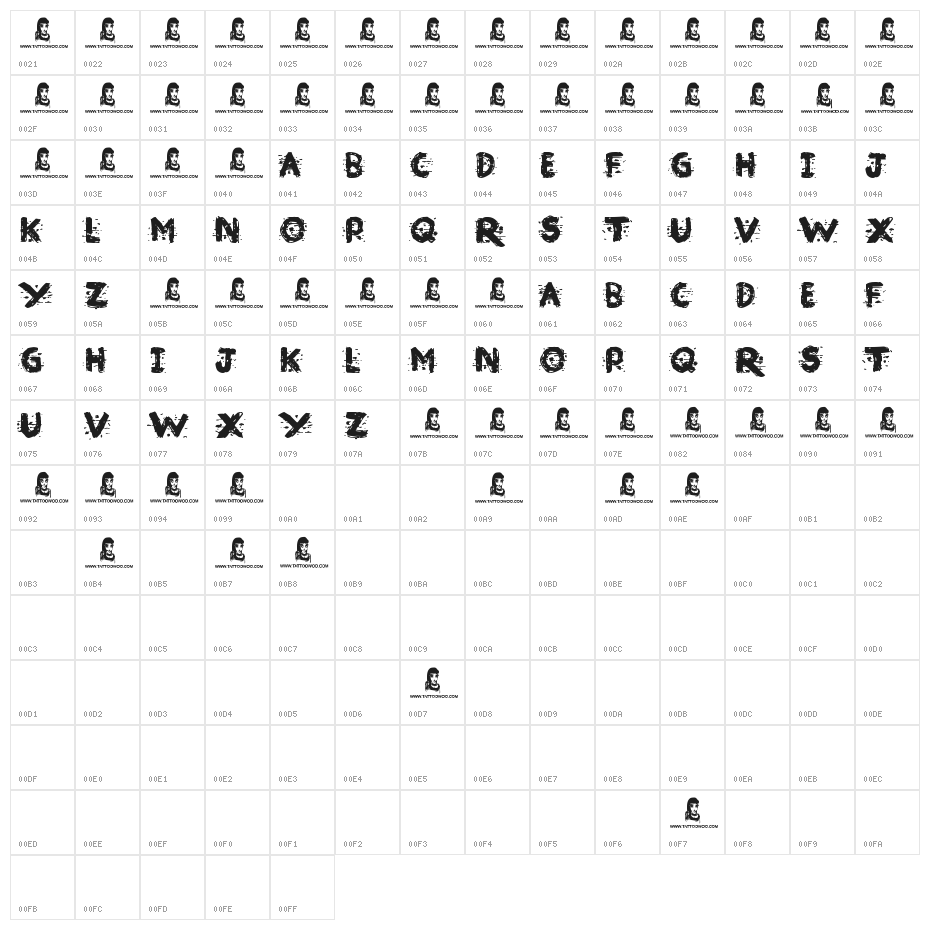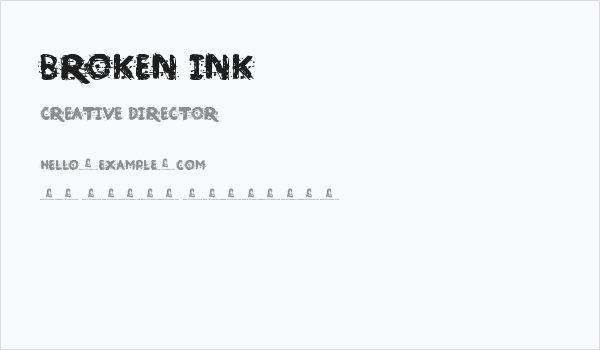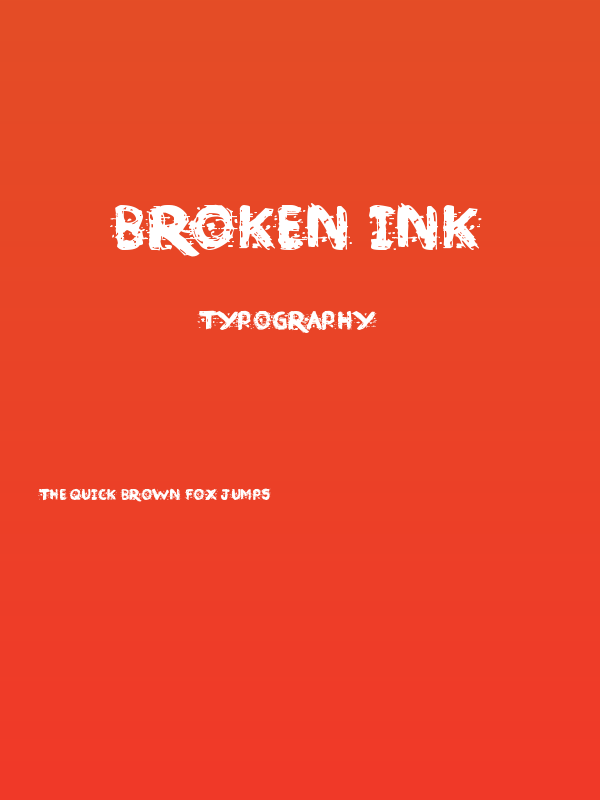
Broken Ink Font
Broken Ink Description
This font exhibits a bold and distressed style, characterized by its rough, ink-splattered appearance. The letters are bold and have a grunge texture that gives them a rugged, edgy feel. The uppercase and lowercase letters maintain a consistent style, with irregular edges and a hand-painted look. This font is highly decorative, making it suitable for projects that require a strong visual impact. The overall aesthetic is reminiscent of street art or graffiti, providing a rebellious and artistic vibe.
Proposed ProjectsIdeal for album covers, posters, streetwear branding, and edgy graphic designs.